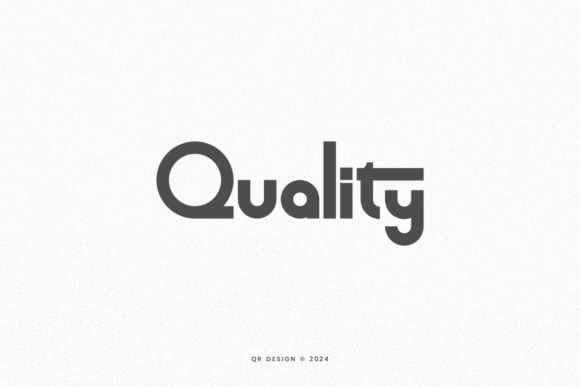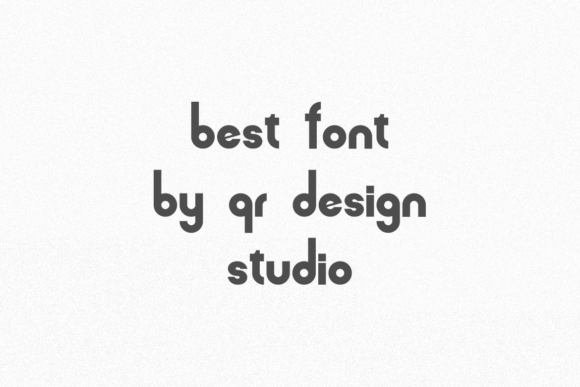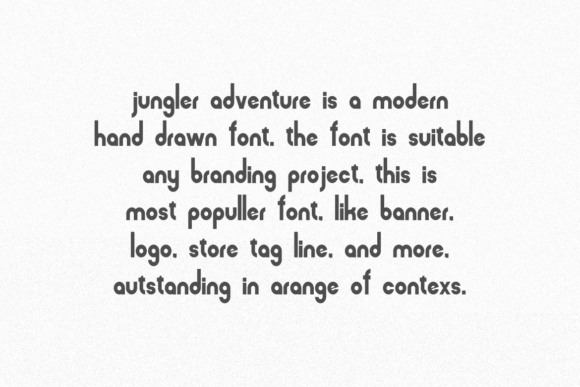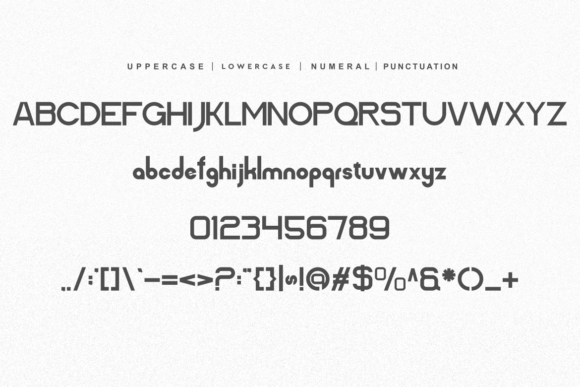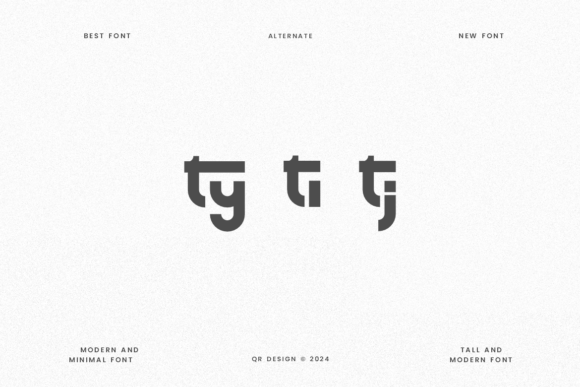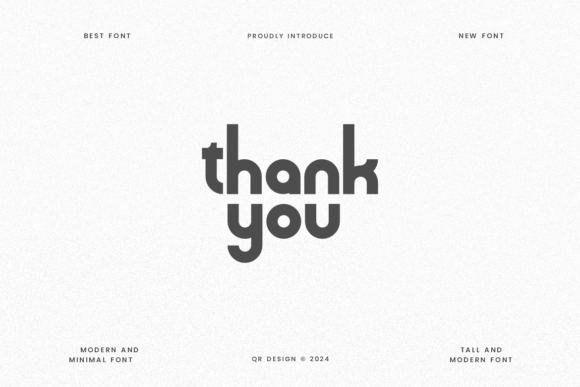
Introduction to Over Quality Font
The moment of truth arrives when you’re about to finalize your creative project. You’ve poured your heart and soul into every detail, from the color palette to the typography. But what sets your design apart from the rest? This is where the Over Quality Font comes in – a game-changing display font that’s about to elevate your branding projects to the next level.
As a designer, you’re always on the lookout for that one special font that adds an extra layer of authenticity to your work. And with Over Quality Font, you’ve found it. Suitable for logos, sports, and a wide range of creative projects, this font is a design resource like no other. With its bold and transparent background, it’s perfect for making a statement.
Whether you’re working on a free download or a high-quality design, Over Quality Font is the perfect addition to your toolkit. Its versatility and high-quality design make it a valuable asset for any designer looking to take their work to the next level.
Honest Review: Over Quality Font
I recently stumbled upon the Over Quality Font while searching for a high-quality font to use in my creative project. I was drawn in by its sleek and modern design, which is perfect for any design resource.
The font has a transparent background, making it easy to customize and combine with other design elements. I love how versatile it is, and it’s been a great addition to my design toolkit.
Here are some of the things that work well for me:
- High-quality design that’s perfect for professional projects
- Easy to customize and use in a variety of creative projects
However, I do have a few minor complaints:
- Only a limited number of styles and weights available
- Not suitable for projects that require a lot of bold or dramatic typography
Overall, I’m impressed with the Over Quality Font. While it may have some limitations, its high-quality design and ease of use make it a great addition to any designer’s toolkit. I’d definitely recommend it to anyone looking for a reliable and professional font.
Over Quality Font
Over Quality Font is a high-quality design resource perfect for creative projects. This free download offers a unique and modern aesthetic that can elevate any design. One of its standout features is its transparent background, making it easy to incorporate into any design without visual clutter.
Tips for Getting the Most Out of Over Quality Font
To get the most out of Over Quality Font, consider the following tips:
- Use it sparingly to add a touch of elegance to your design
- Combine it with other high-quality design resources for a cohesive look
- Experiment with different font sizes and styles to create visual interest
Over Quality Font is perfect for a variety of creative projects, including:
- Wedding invitations and event